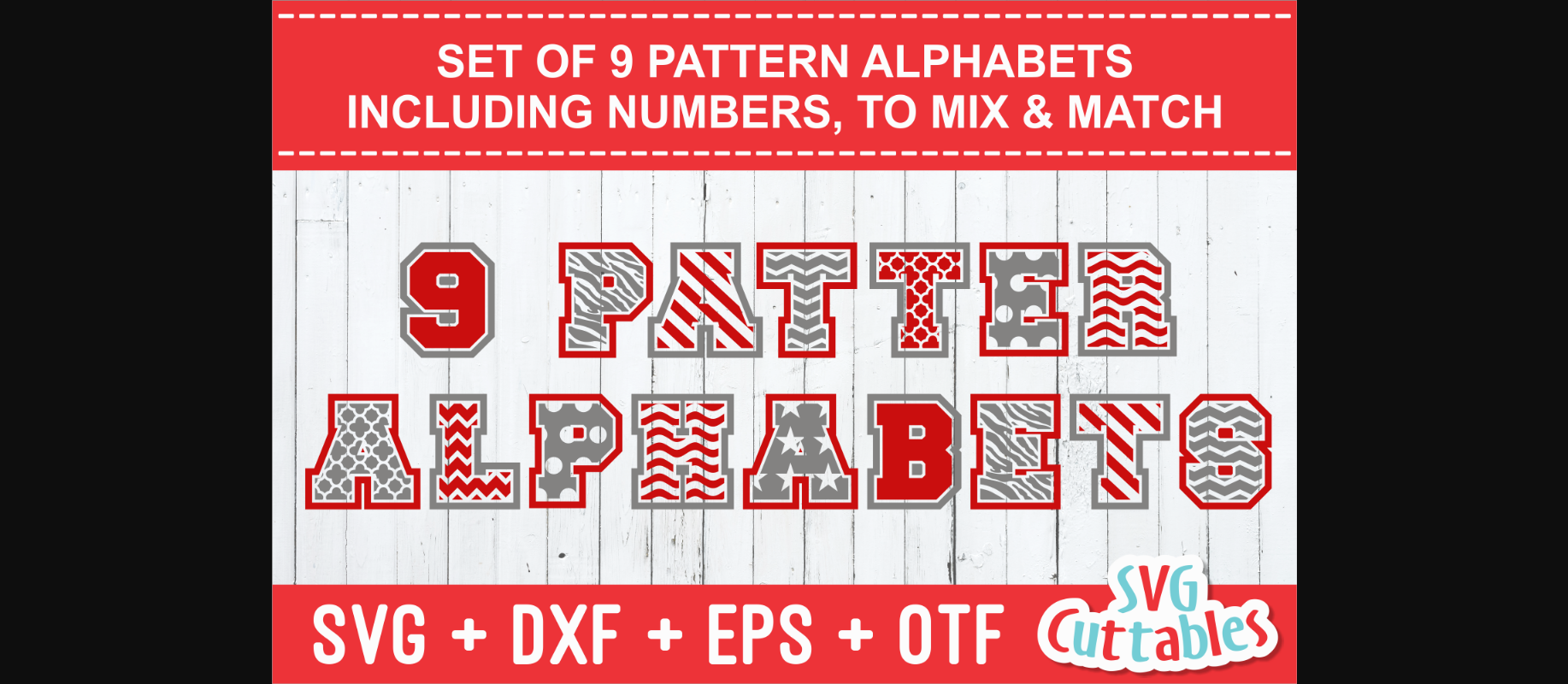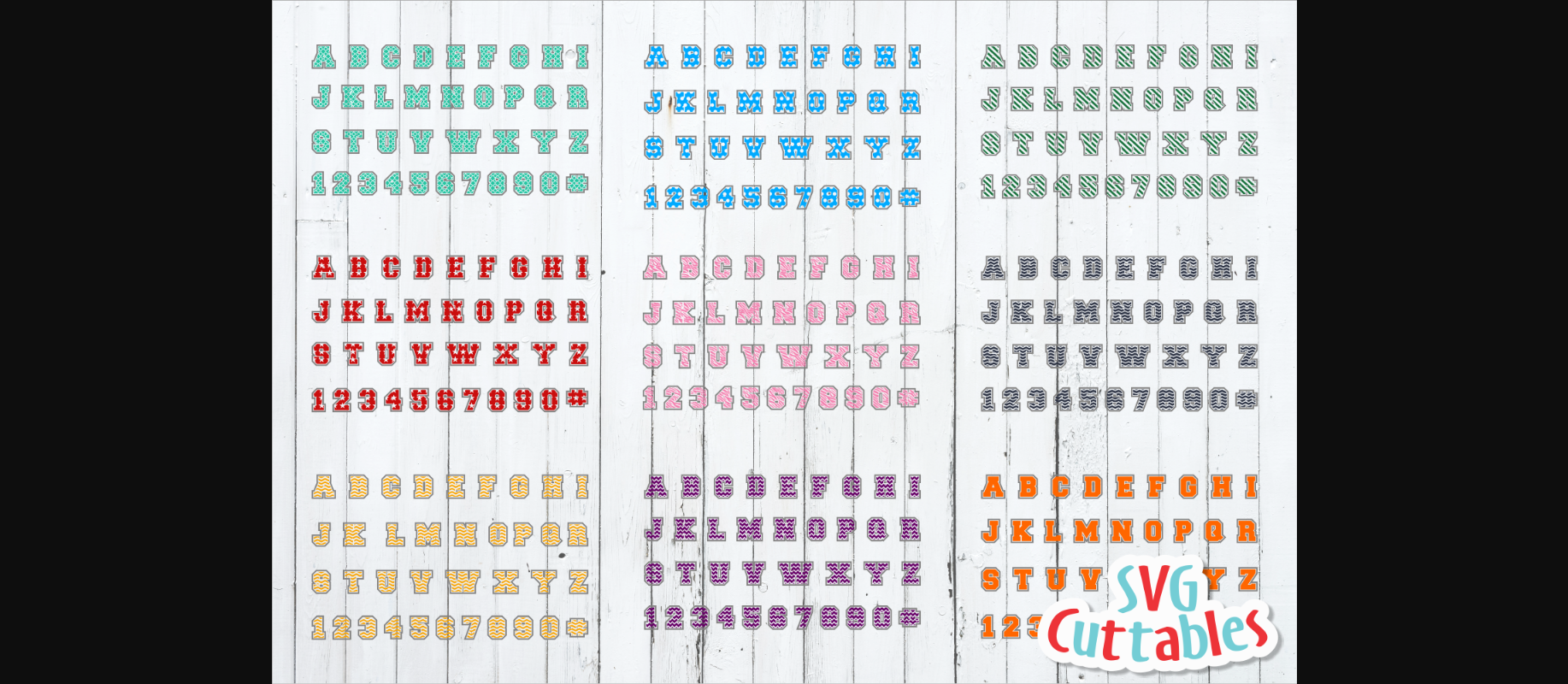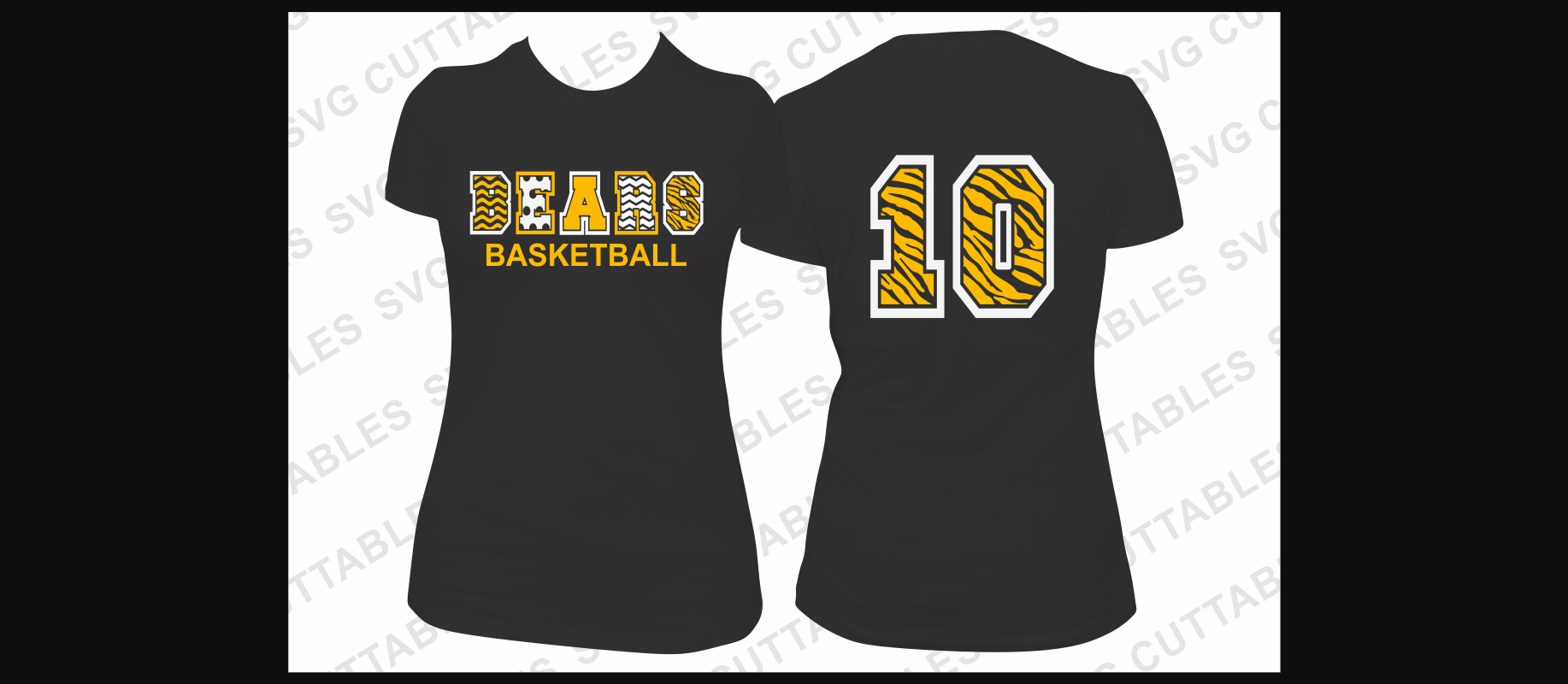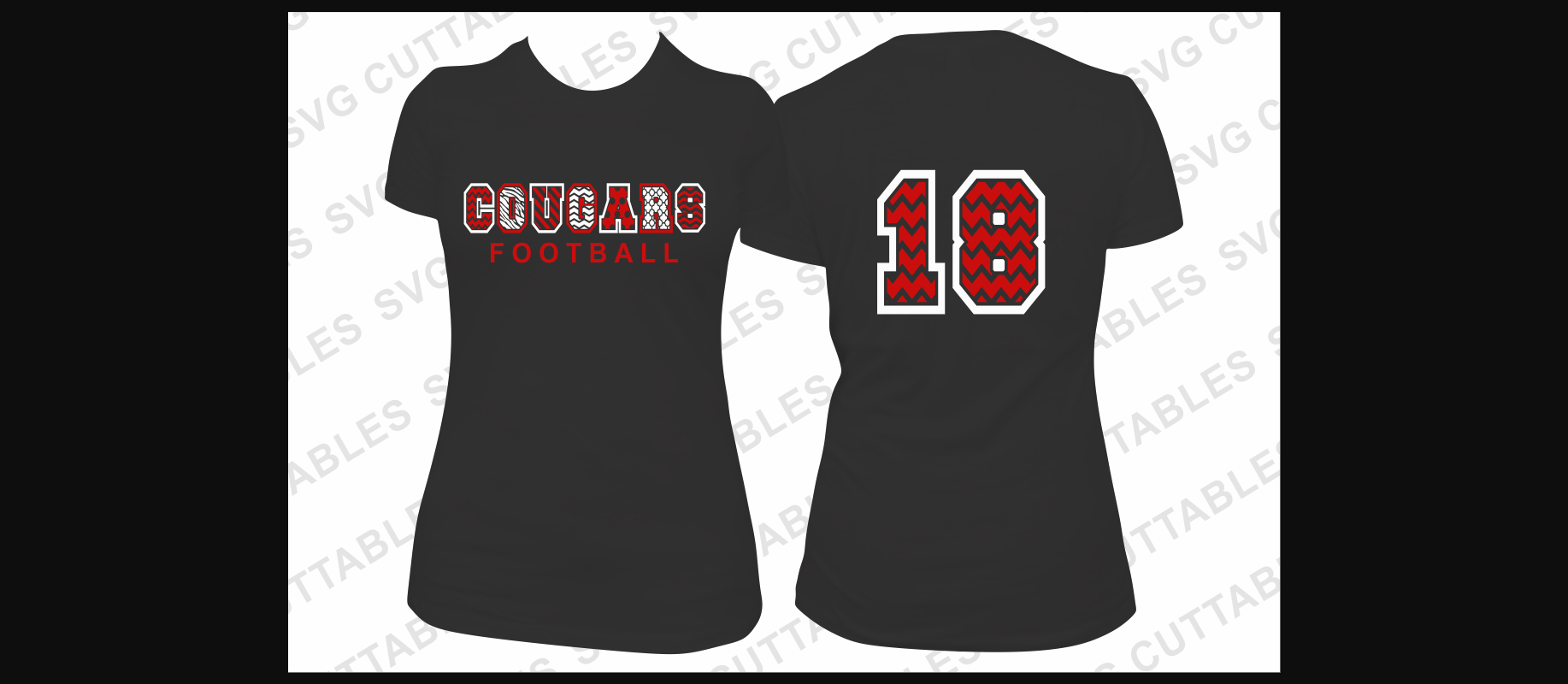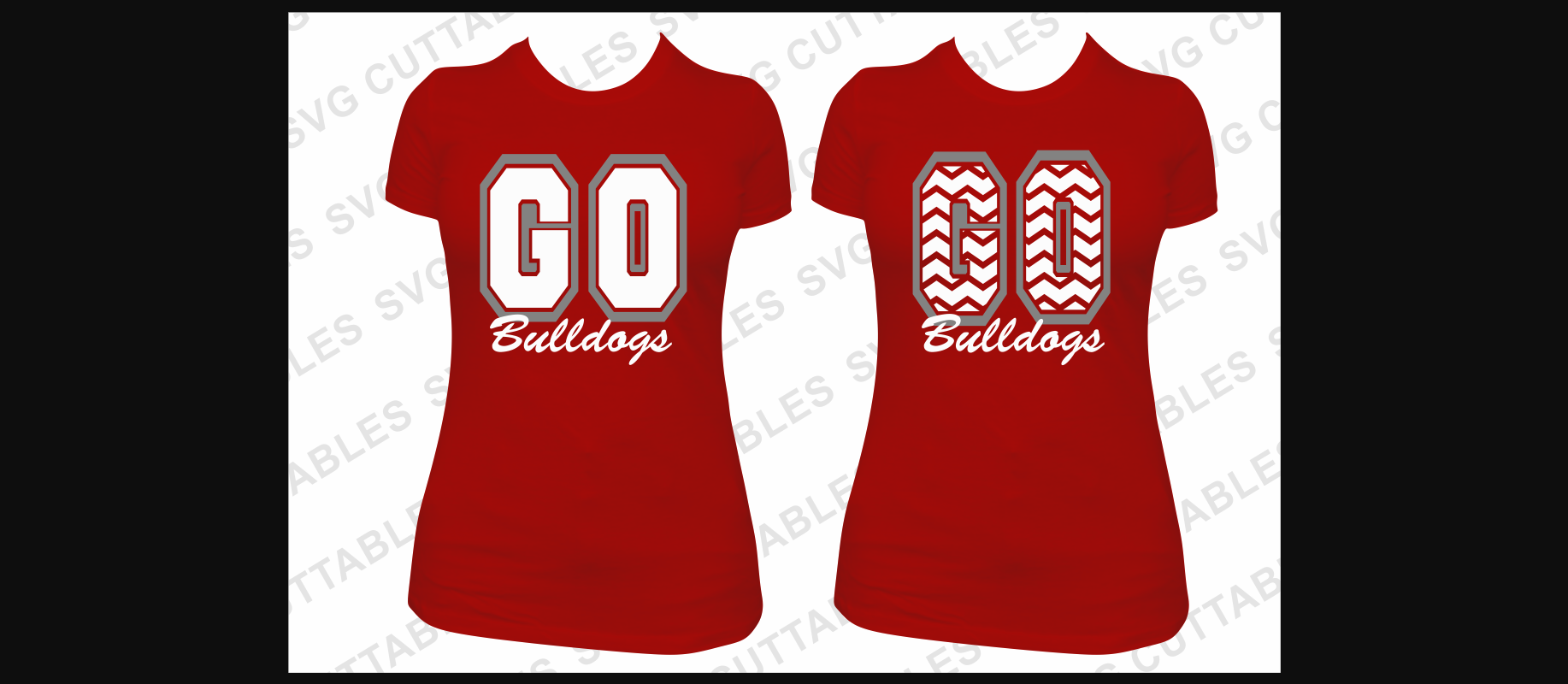
Pattern Alphabet is a cool and incredibly unique decorative font. It is perfect for children themed designs, especially when combined with bright colors.